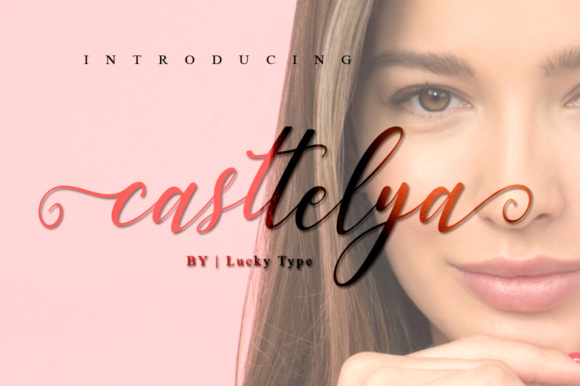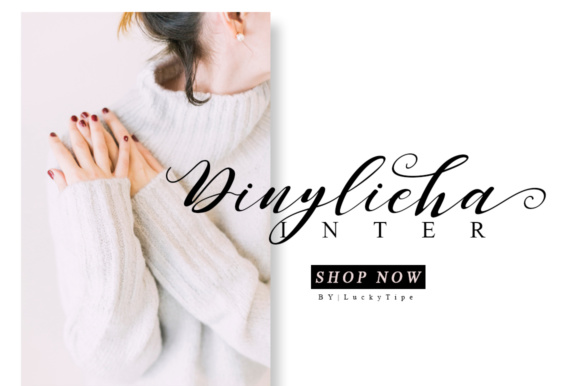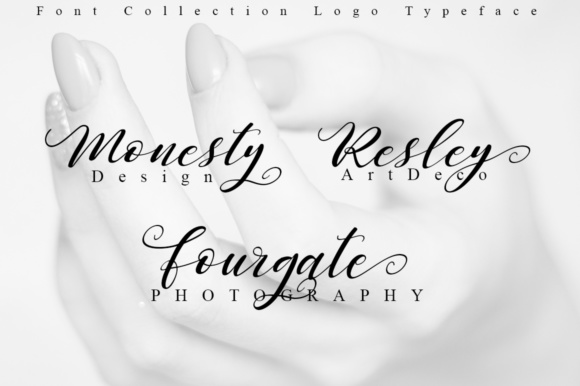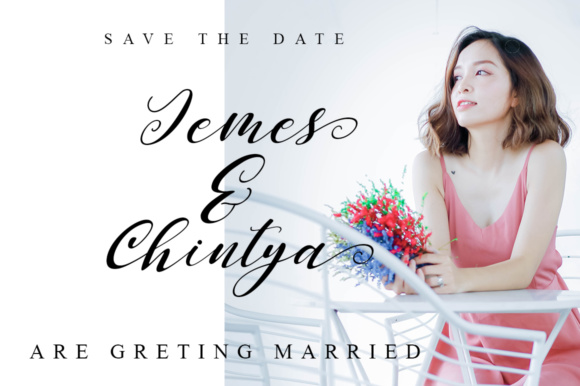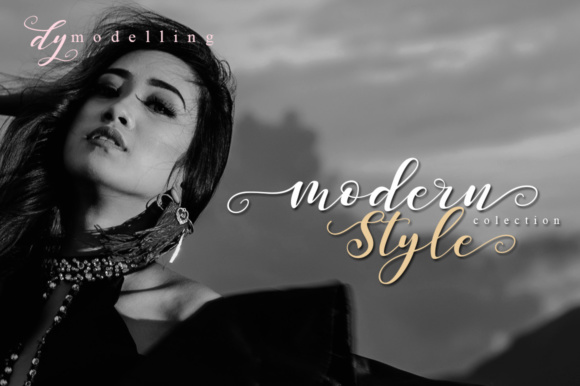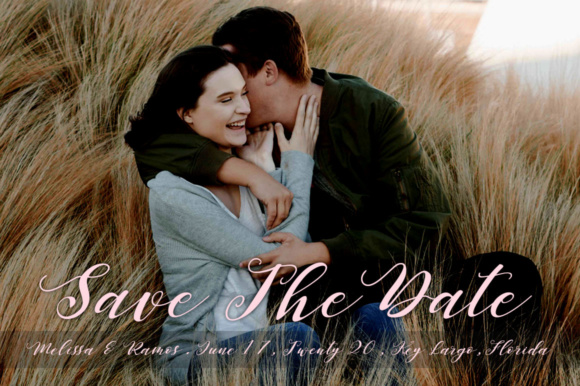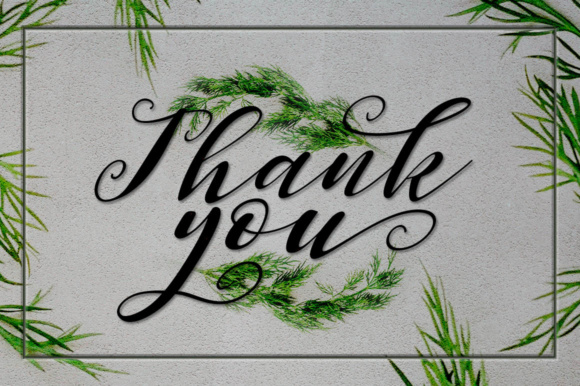
Casttelya Font
About Casttelya Font
Casttelya is a sweet calligraphy font. It’s casual and dynamic with a dancing baseline. Casttelya can be used easily and simply.